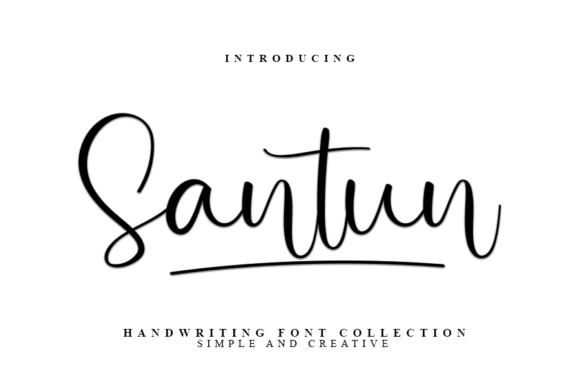
Introducing the Santun Font: A Brush Lettering Masterpiece for Your Creative Endeavors
Immerse yourself in the world of hand-crafted elegance with the Santun Font, an exquisite script font that captivates with its bold strokes and enchanting curves. Whether you're a seasoned graphic designer, a passionate crafter, or simply seeking to add a touch of uniqueness to your digital creations, Santun is the perfect font to elevate your projects.
Unleash the boundless potential of Santun and let your imagination soar. Its versatility knows no bounds, making it the ideal choice for an array of applications. Craft stunning posters that command attention, design eye-catching logos that leave a lasting impression, or create personalized greeting cards that convey your heartfelt sentiments. With Santun as your creative companion, the possibilities are endless.
Step into a world of creativity and let Santun's distinct charm work its magic. Transform ordinary designs into captivating works of art, leaving your audience mesmerized. Experience the joy of crafting projects that exude sophistication and style, all thanks to the allure of the Santun Font.